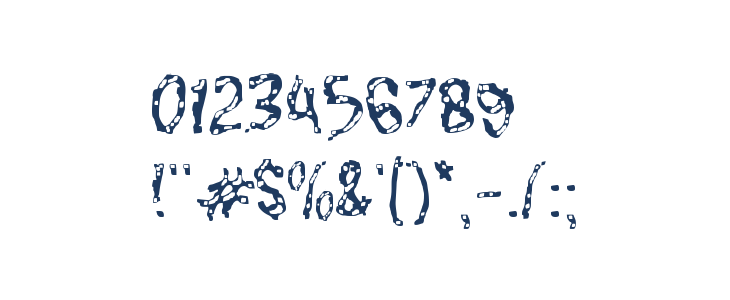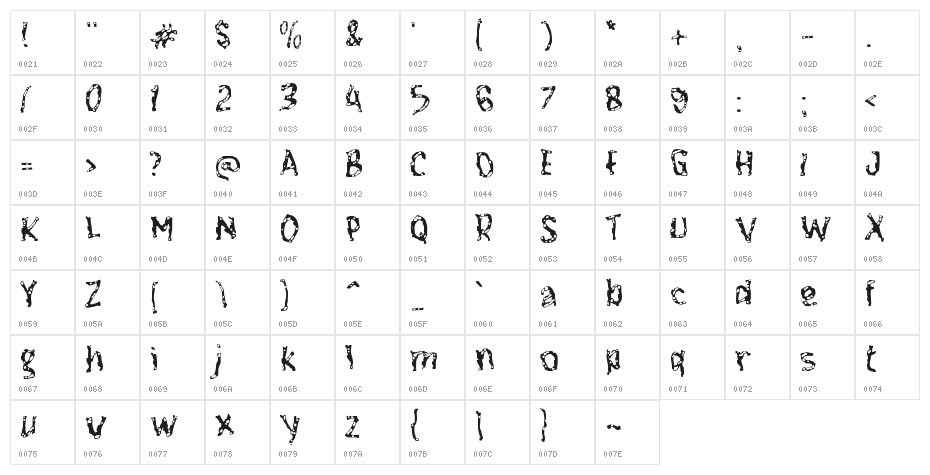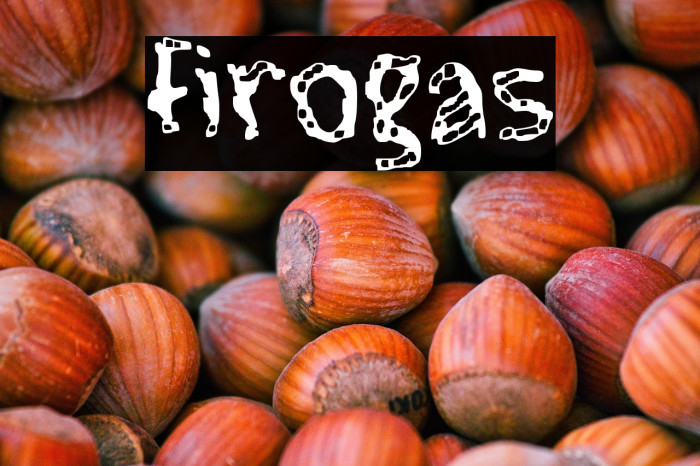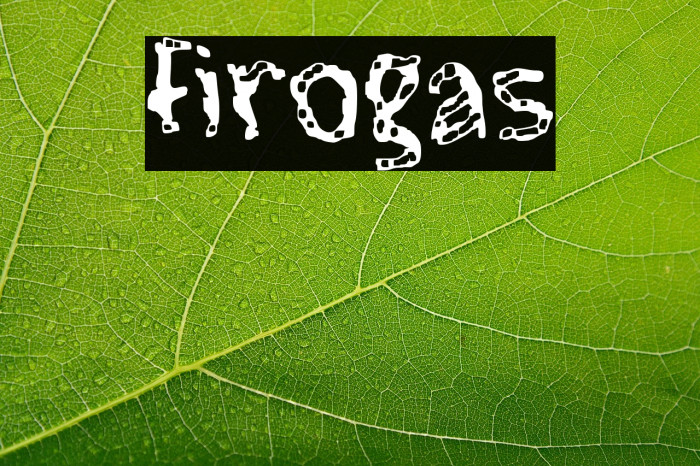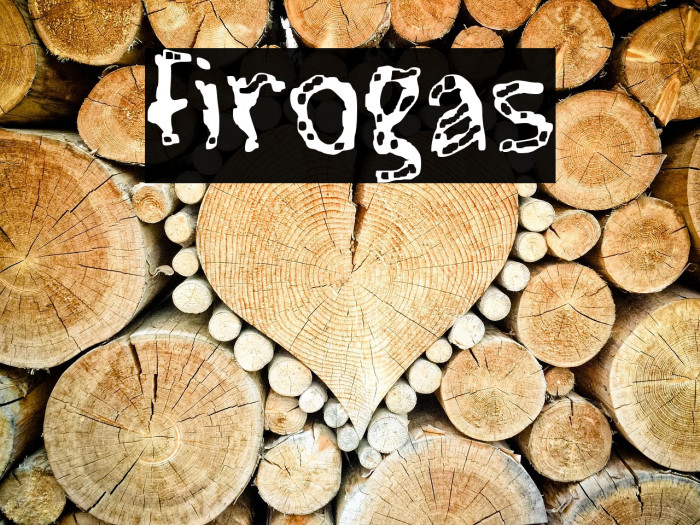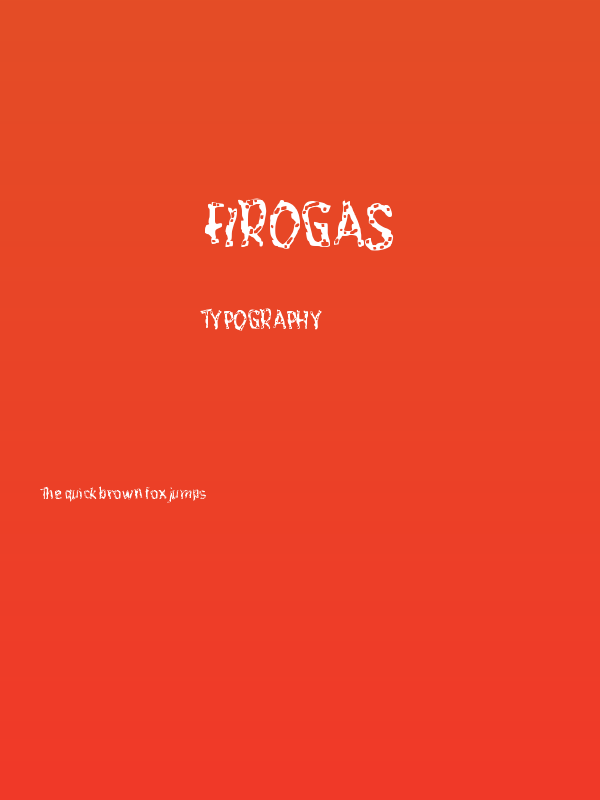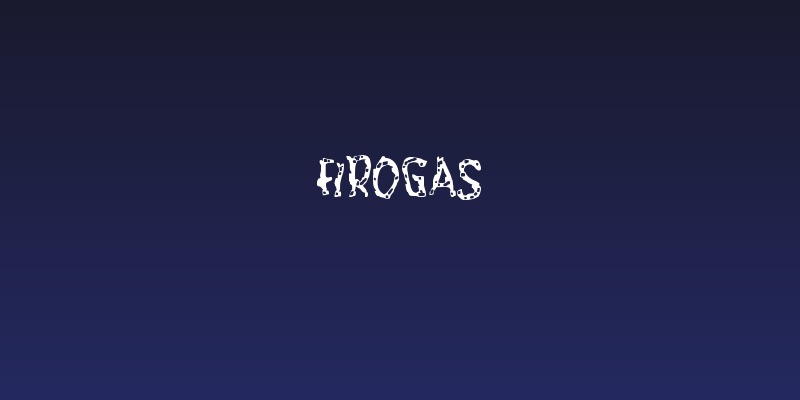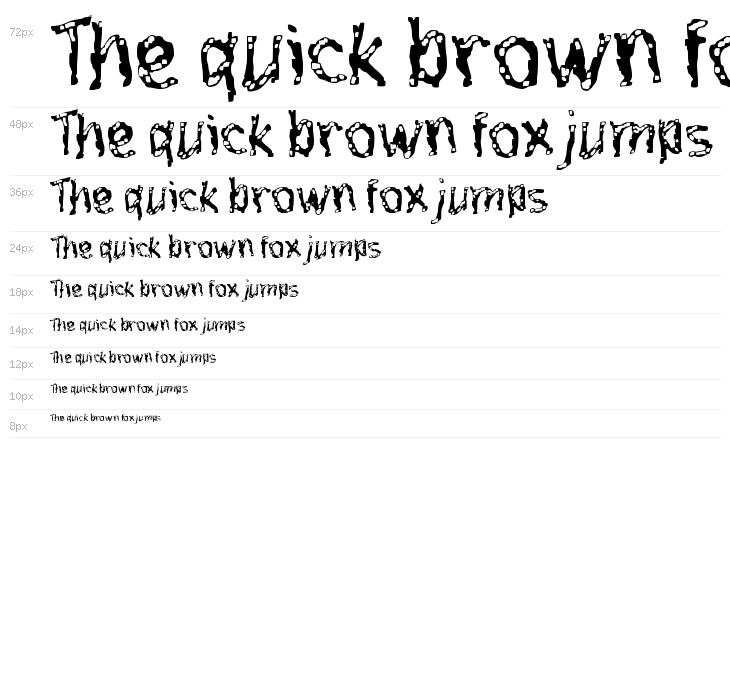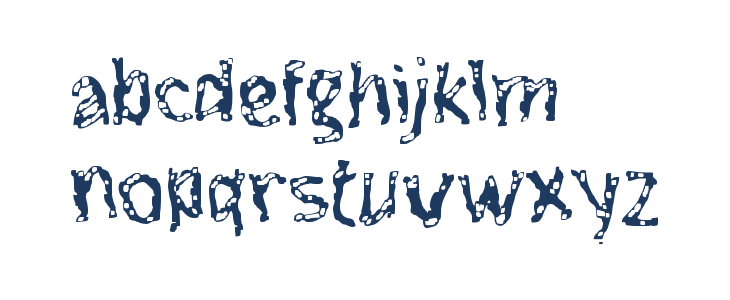
Firogas Font
Firogas Description
This font features a highly decorative and playful style, characterized by irregular shapes and a hand-drawn appearance. The letters are filled with random holes and spots, giving them a unique, almost organic texture. The overall design is bold and eye-catching, making it suitable for creative and informal applications. The uppercase and lowercase letters maintain a consistent style, while the numbers and special characters follow the same whimsical theme. This font stands out due to its artistic flair and unconventional design, making it perfect for projects that require a touch of creativity and fun.
| Proposed Projects | Ideal for children's books, creative posters, party invitations, and any project needing a fun, artistic touch. |